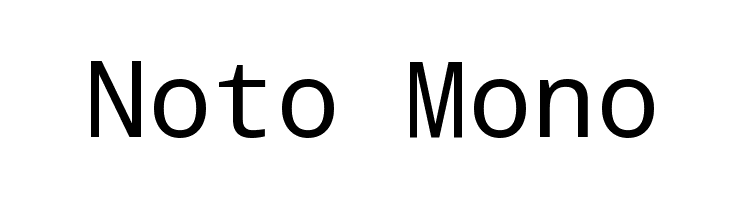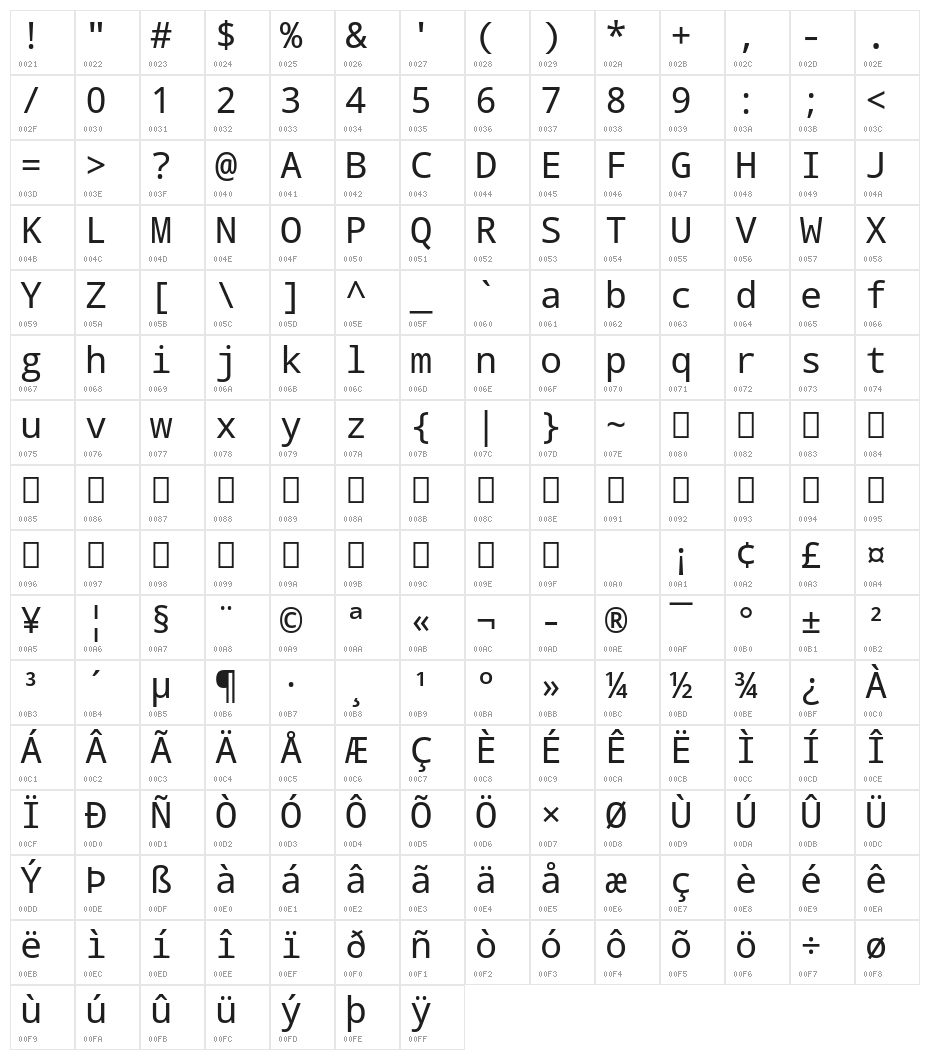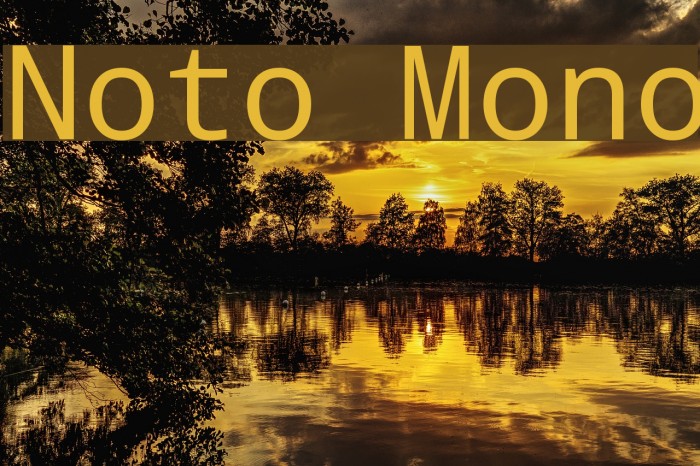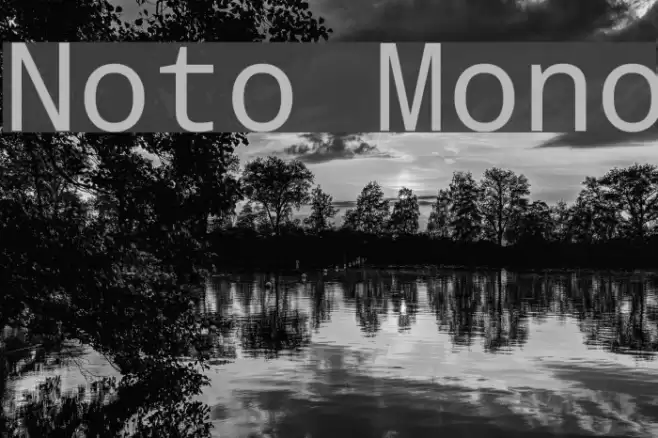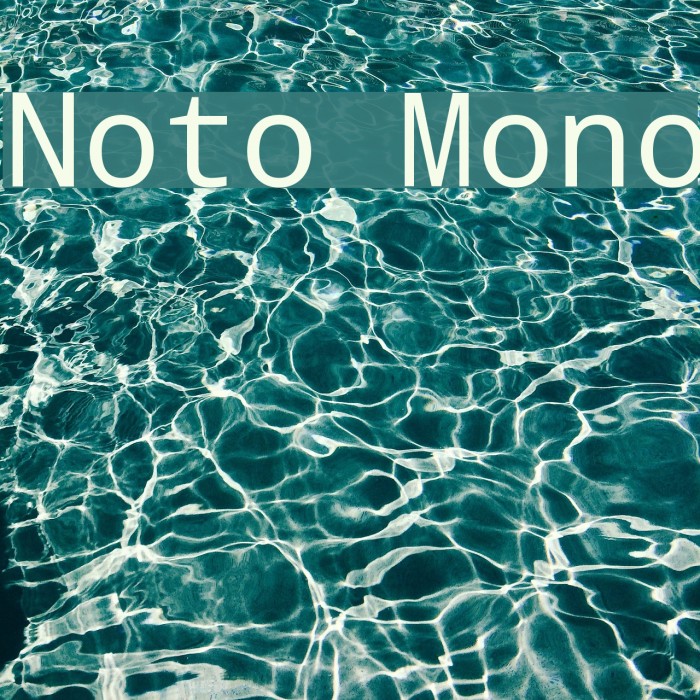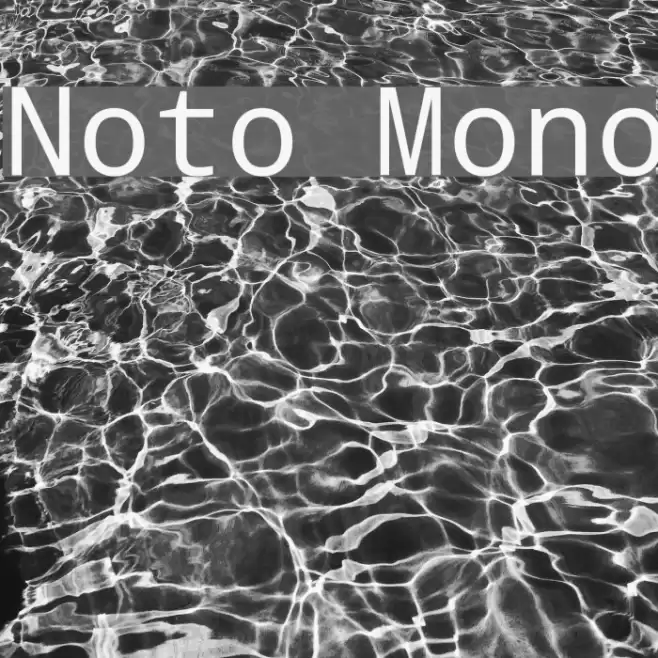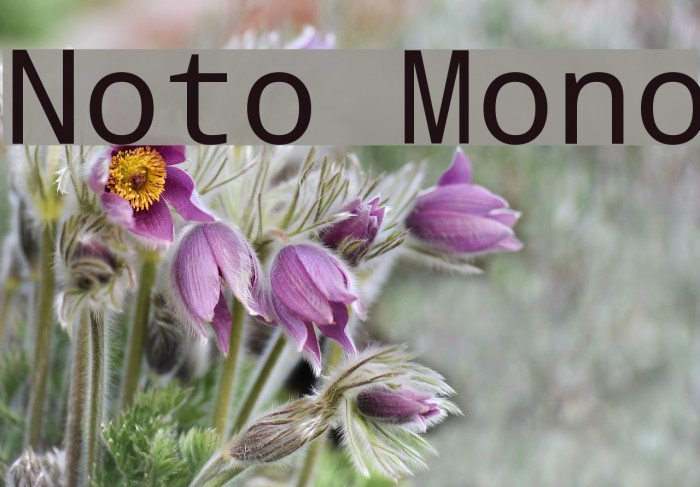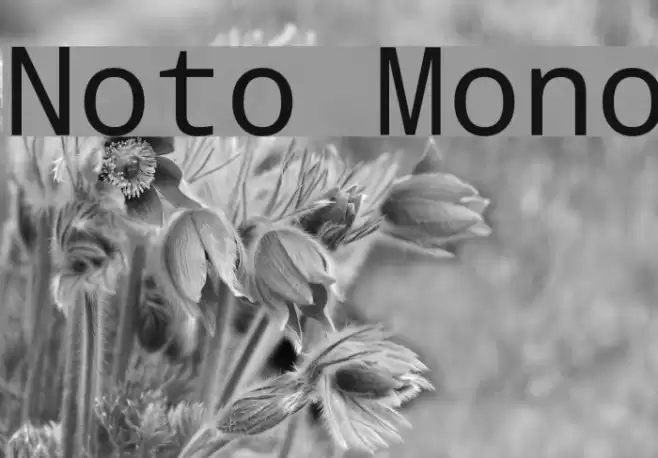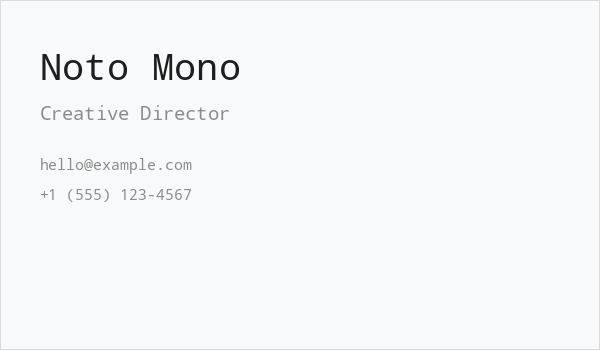
Noto Mono Font
Noto Mono Description
This font features a clean and modern monospaced design, ideal for coding and technical documentation. Each character is evenly spaced, ensuring clarity and readability. The uppercase and lowercase letters maintain a consistent height, while the numerals are distinct and easy to differentiate. The special characters are straightforward, making them suitable for various technical applications. The overall appearance is minimalistic, with a focus on functionality and precision.
Use CaseCoding, Technical documentation
Proposed ProjectsIdeal for coding environments, technical documentation, and any project requiring precise alignment of text.